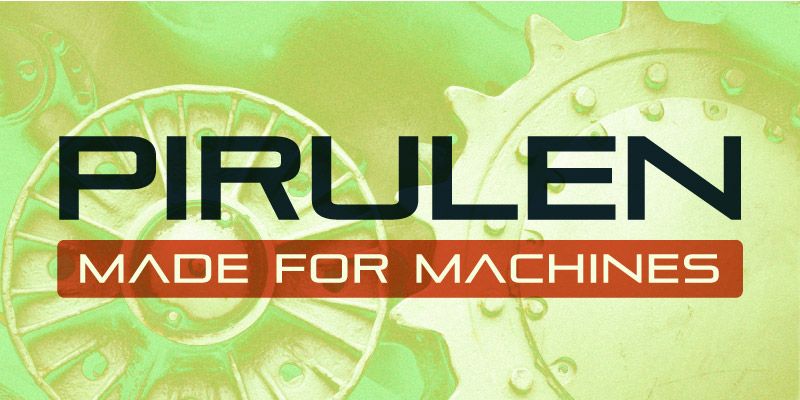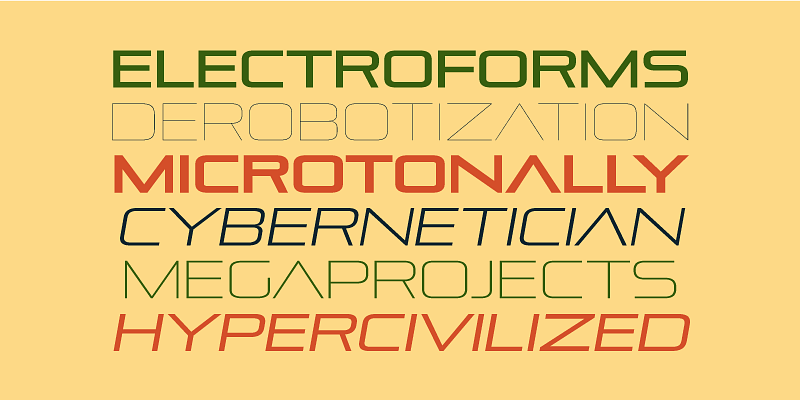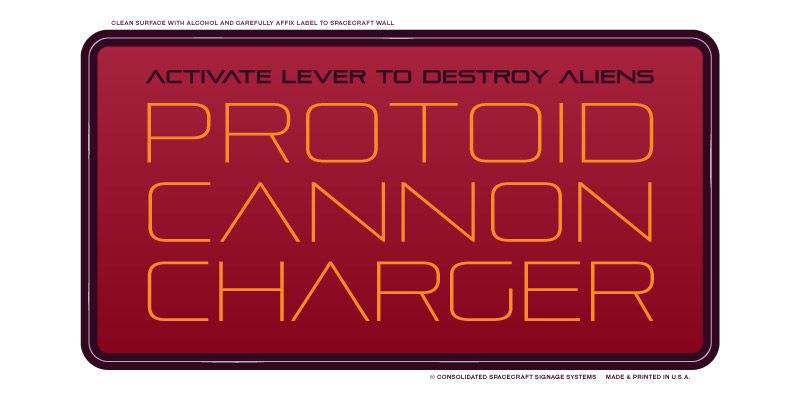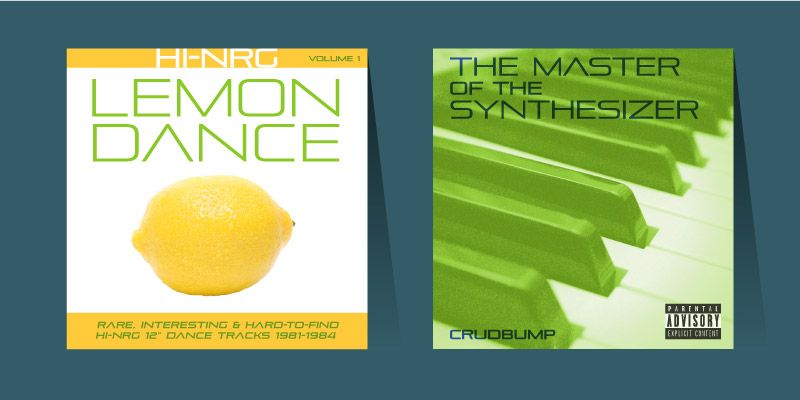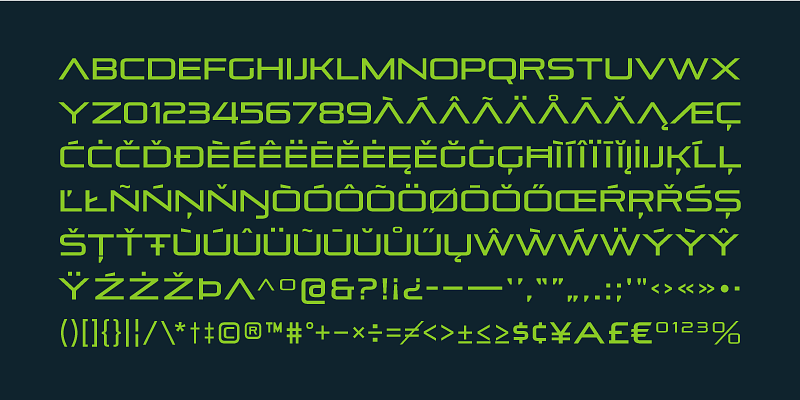
Pirulen is a wide, high-tech headliner with a striking lambda-shaped A. An alternate barred A lets a designer decide how far to push that futuristic signature in a name. The family spans UltraLight, ExtraLight, Light, Regular, Book, and Bold, each with an italic, so the same broad geometry can move from a fine technical line to a forceful title. Use it for aerospace names, robotics, electronic music, or engineered product graphics that have room for extended lettering. Its proportions reward short, prominent words more than crowded blocks of copy.